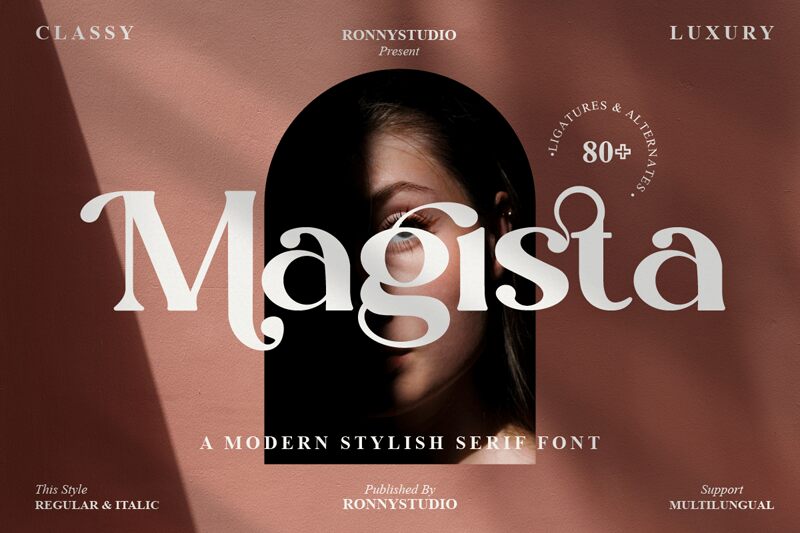
Magista Italic
Magista Italic is a bold and wide serif font designed by Rony Rizki Jaya. This unique font is ideal for creating eye-catching headlines, logos, posters, book covers, and more! It's perfect for projects that require an elegant yet bold look.